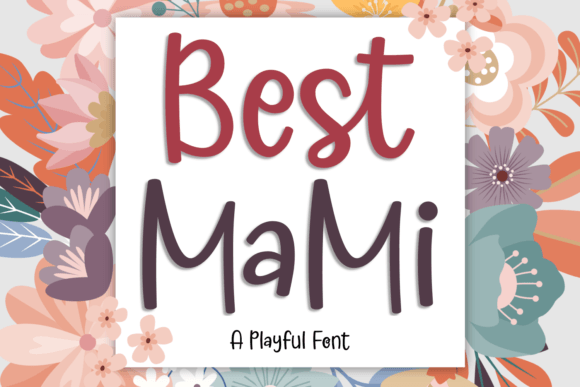
The Perfect Script for Your Next Design Project
There’s nothing quite like the feeling of finding the perfect font to elevate your design. You’re browsing through your favorite font library, scrolling through page after page of typography options, when suddenly you stumble upon it – the one that makes your design sing. For many of us, that moment is what makes all the late nights and early mornings worth it. And for designers looking to add a touch of whimsy to their work, that perfect font is often the Best Mami Font.
Best Mami is more than just a font – it’s a way to inject personality and fun into your designs. With its flowing, curvy lines and playful charm, it’s the perfect addition to invitations, greeting cards, and any other project that demands a touch of lightheartedness. And with its PUA encoding, you’ll have access to all the glyphs and swashes you need to make your designs truly shine.
Key Features of Best Mami Font
- Font Family: Best Mami Font is a unique, hand-drawn script font designed for creative and personal projects.
- Character Set: Includes a wide range of characters, including uppercase and lowercase letters, numbers, punctuation, and special characters, making it suitable for various text-based applications.
- Unique Characteristics: Best Mami Font features a playful, handwritten style with subtle imperfections, giving it a personal and artistic touch.
Best Mami Font Review
I’ve had the chance to work with the Best Mami Font, and here’s my honest take on it.
- Unique Character: Best Mami Font has a distinctive, playful character that sets it apart from other fonts.
- Legibility: The font is highly legible, even at smaller sizes, making it suitable for a wide range of applications.
- Customization Options: The font comes with a range of customization options, allowing users to adjust the weight, size, and spacing to suit their needs.
- Limited Compatibility: Best Mami Font may not be compatible with all operating systems or software, which could cause issues in certain environments.
- Overuse: The font’s unique character can make it prone to overuse, which can lead to a lack of visual interest and a “font fatigue” effect.
- Limited Font Family: Best Mami Font is a single font, which means it may not be suitable for applications that require a range of font styles.
Overall, I think Best Mami Font is a great choice for designers looking for a unique, playful font. However, it’s essential to be aware of its limitations and use it thoughtfully to avoid overuse and ensure compatibility.
Tip: Use the Best Mami Font for creative and playful projects, such as social media graphics and flyers.
Tip: Use the Best Mami Font for creative and artistic projects, such as logos and infographics.
Tip: Use the Best Mami Font for creative and attention-grabbing presentations and documents.
The Best Mami Font is ideal for:
- Social media graphics and flyers
- Logos and infographics
- Presentations and documents
- Wedding invitations and party decorations
Remember to use the Best Mami
Alternatives to “Best Mami Font” for Designers
Great Vibes Font is a modern, elegant script font that is perfect for creating a sophisticated and professional look. It is ideal for use in branding, advertising, and editorial design. Great Vibes Font is more versatile than Best Mami Font, with a wider range of font weights and styles available.
Alex Brush Font is a beautiful, handwritten font that is great for adding a personal touch to your designs. It is ideal for use in invitations, greeting cards, and other creative projects. Alex Brush Font has a more rustic and vintage feel than Best Mami Font, making it perfect for projects that require a unique and handmade look.
What is the recommended line height for using the Best Mami Font?
The recommended line height for the Best Mami Font is 1.2 to 1.5 times the font size. This allows for comfortable reading and prevents the text from becoming too dense or too sparse. Adjusting the line height can also help to create visual balance and hierarchy in your design.